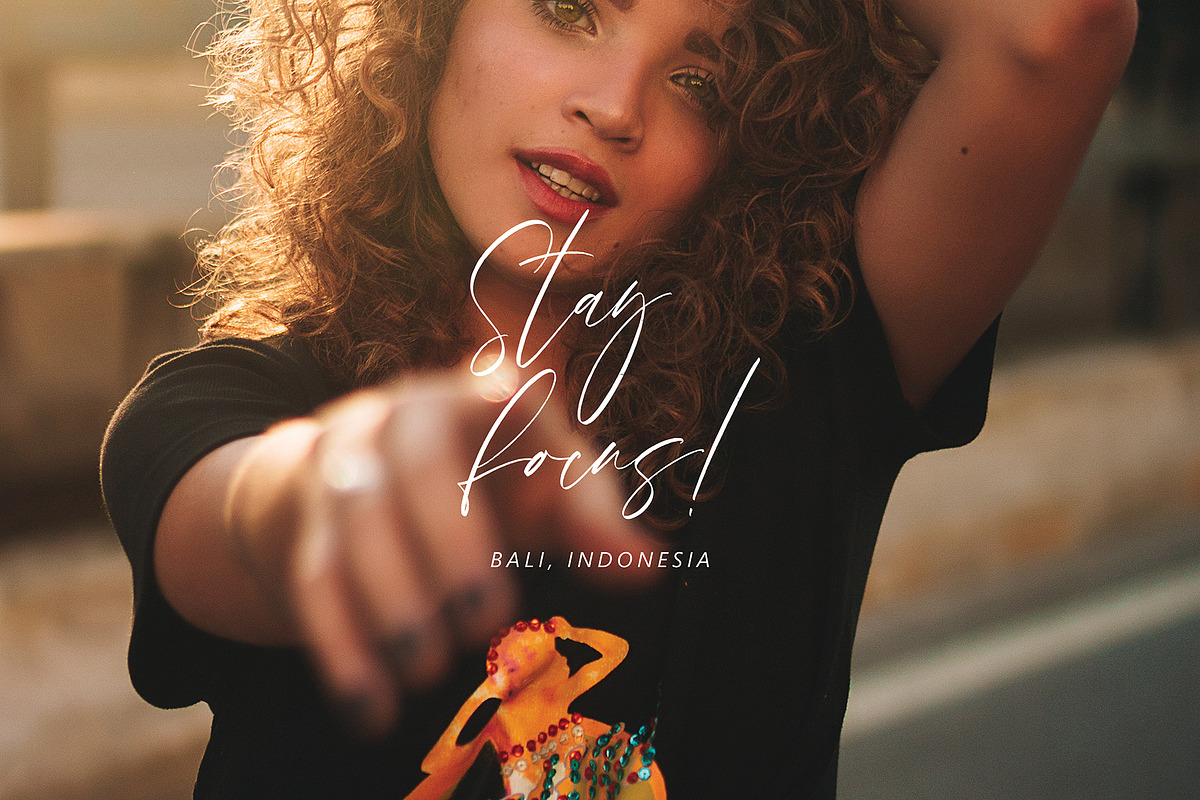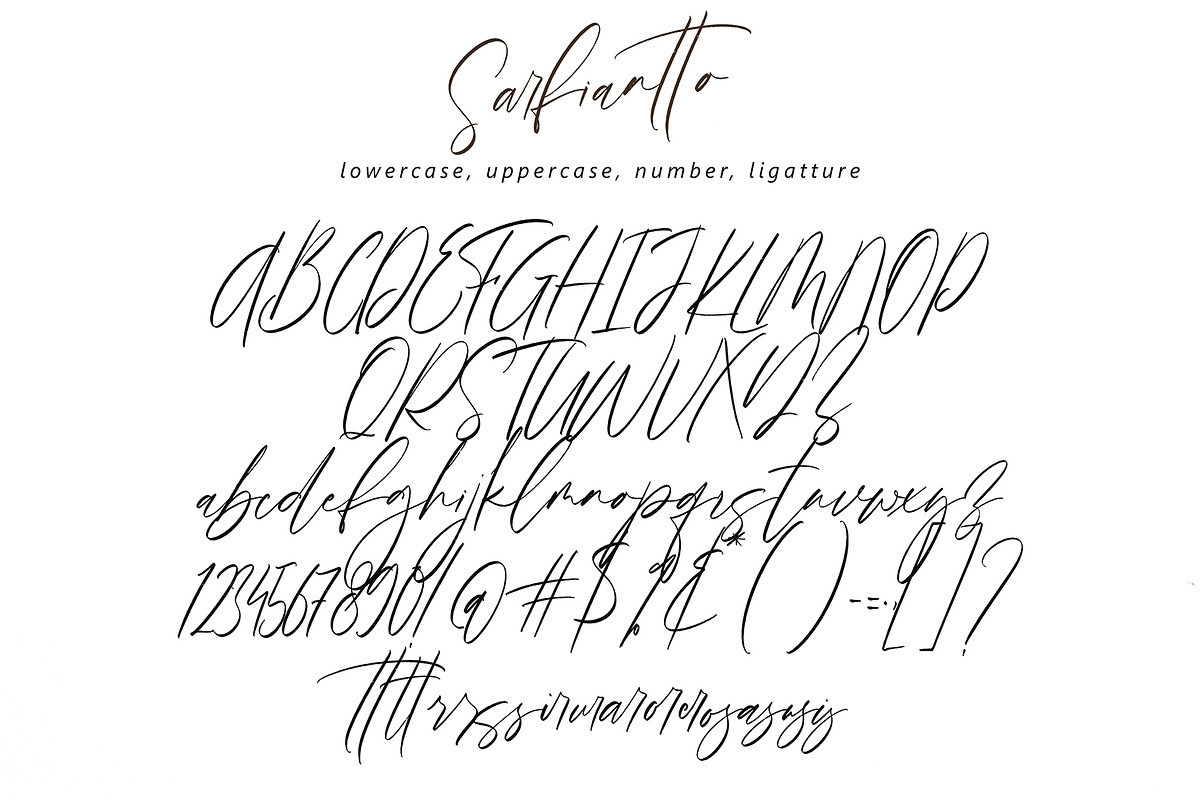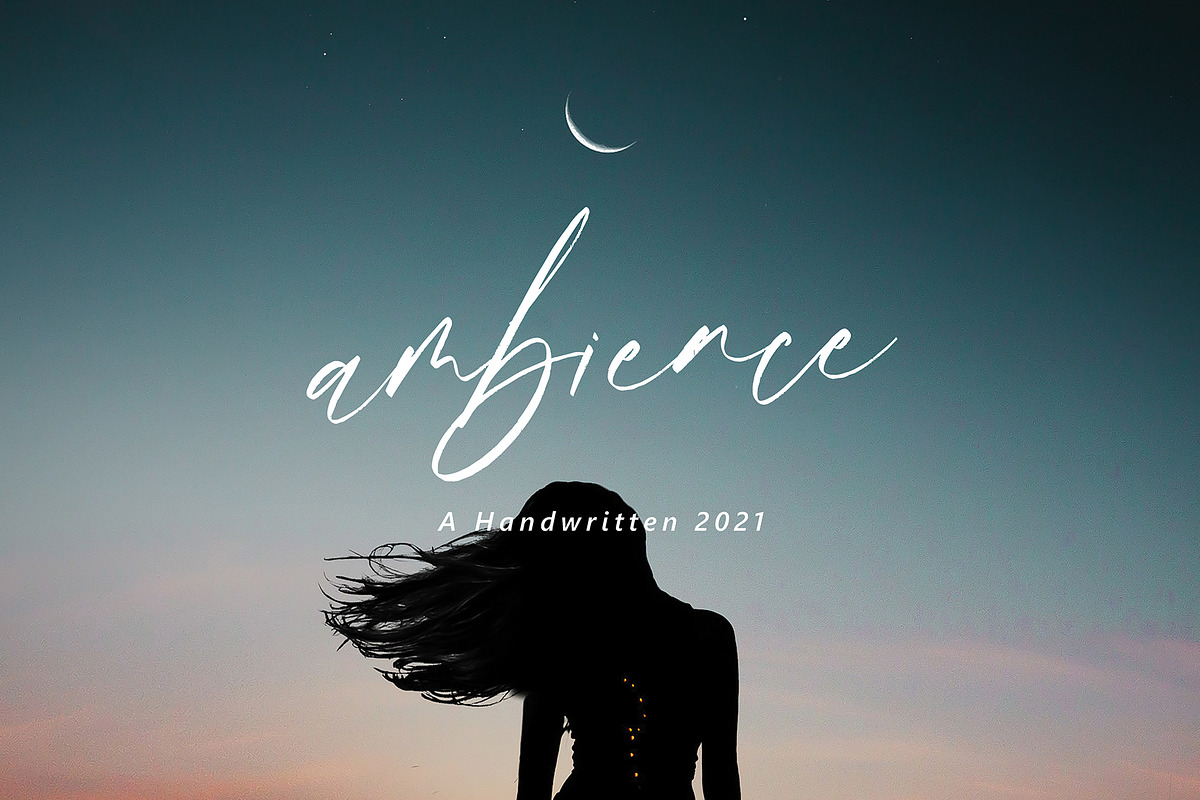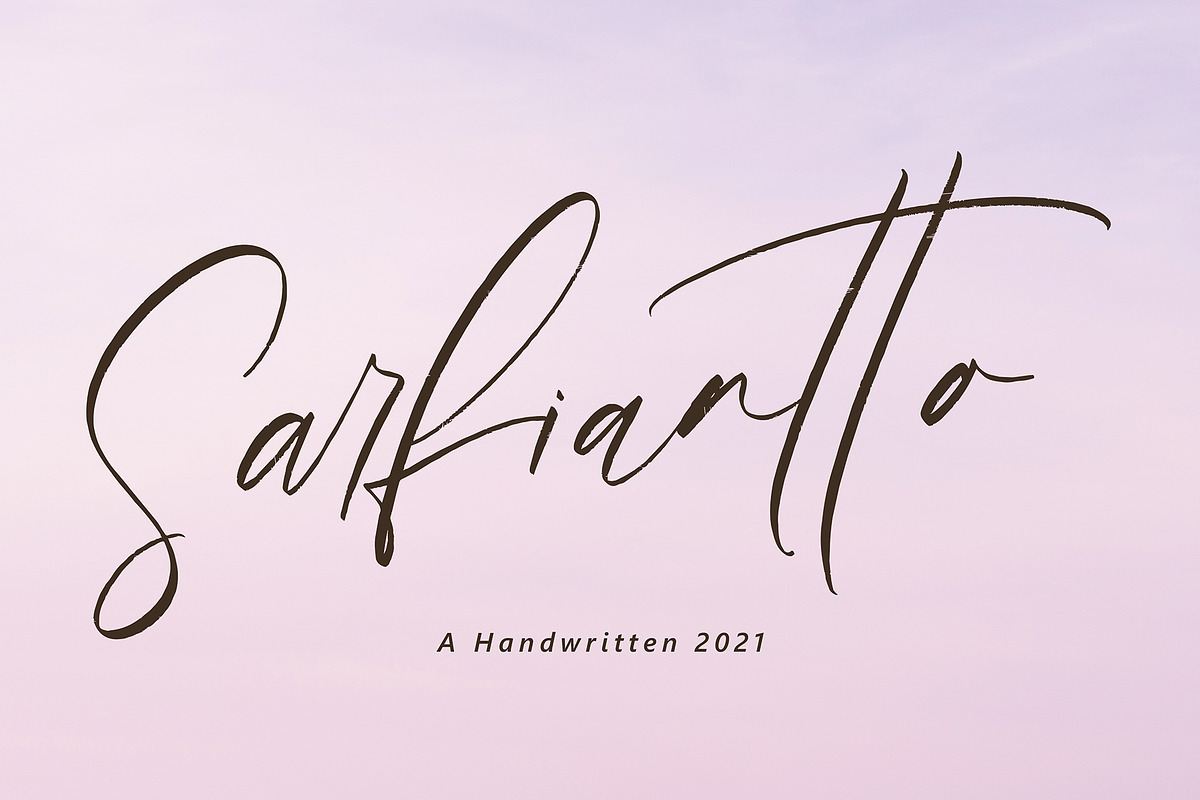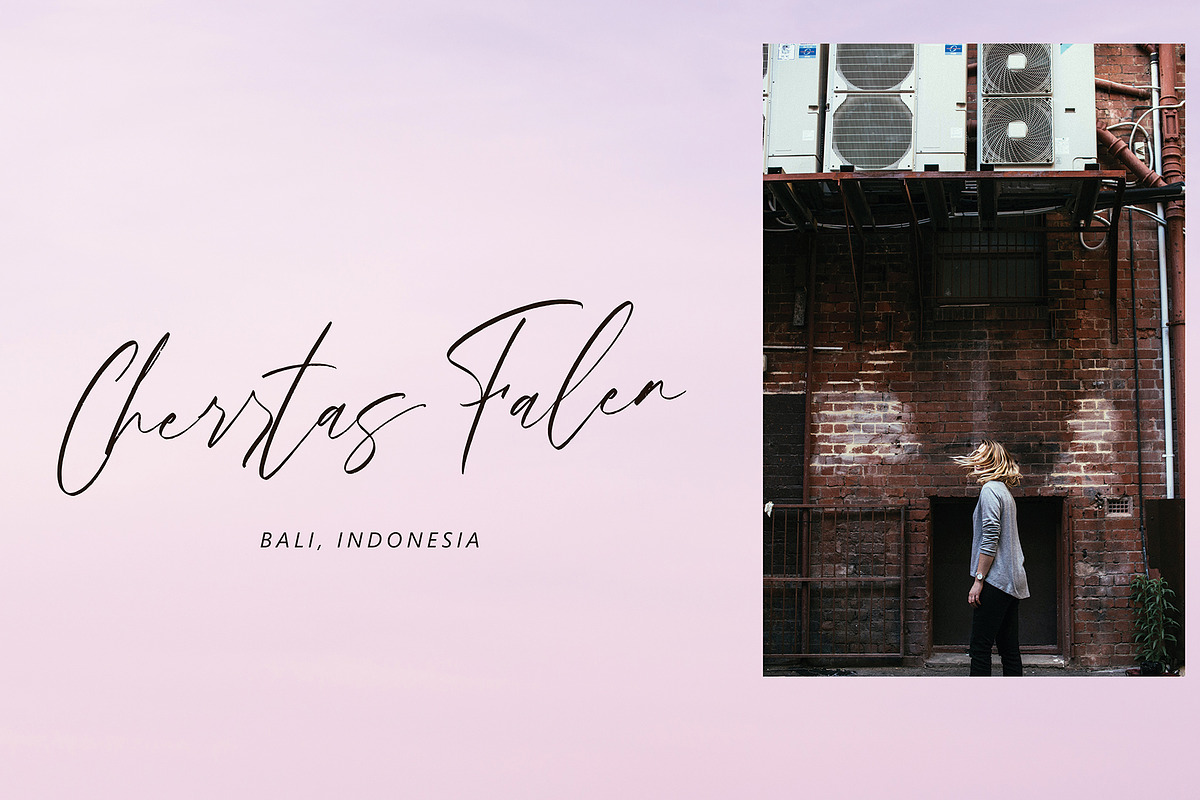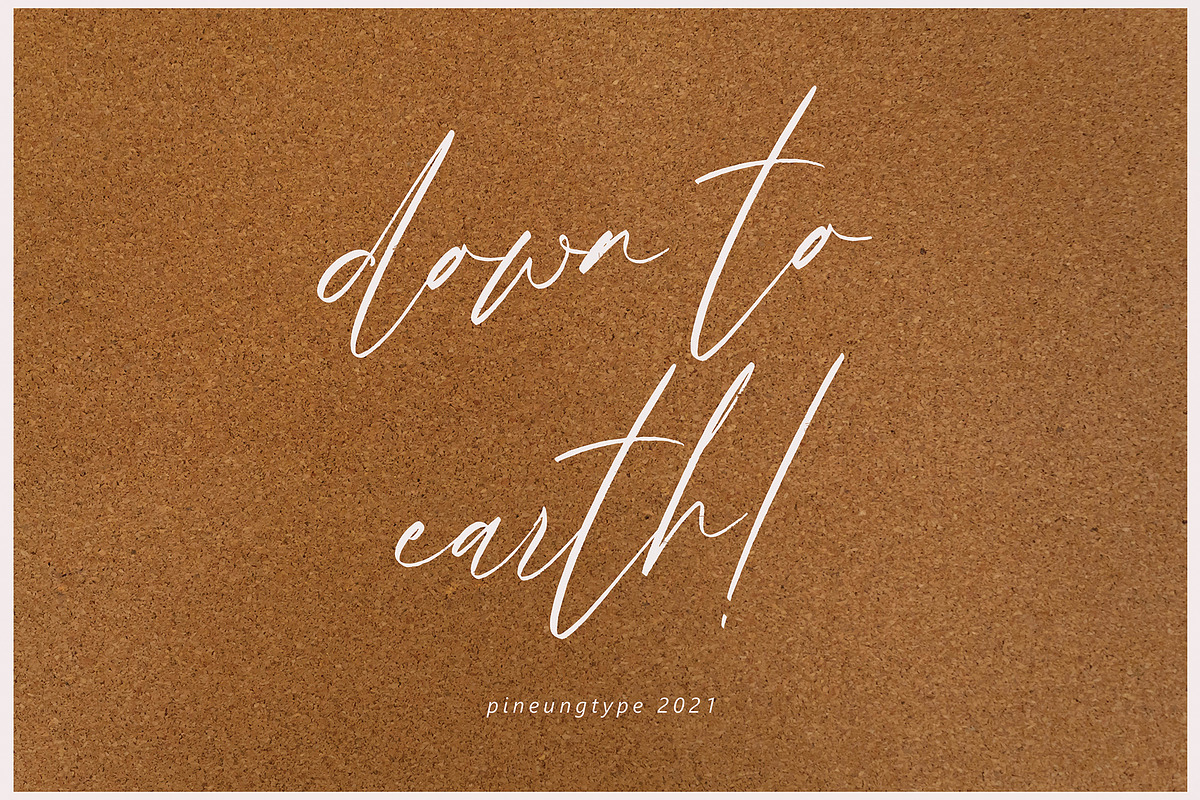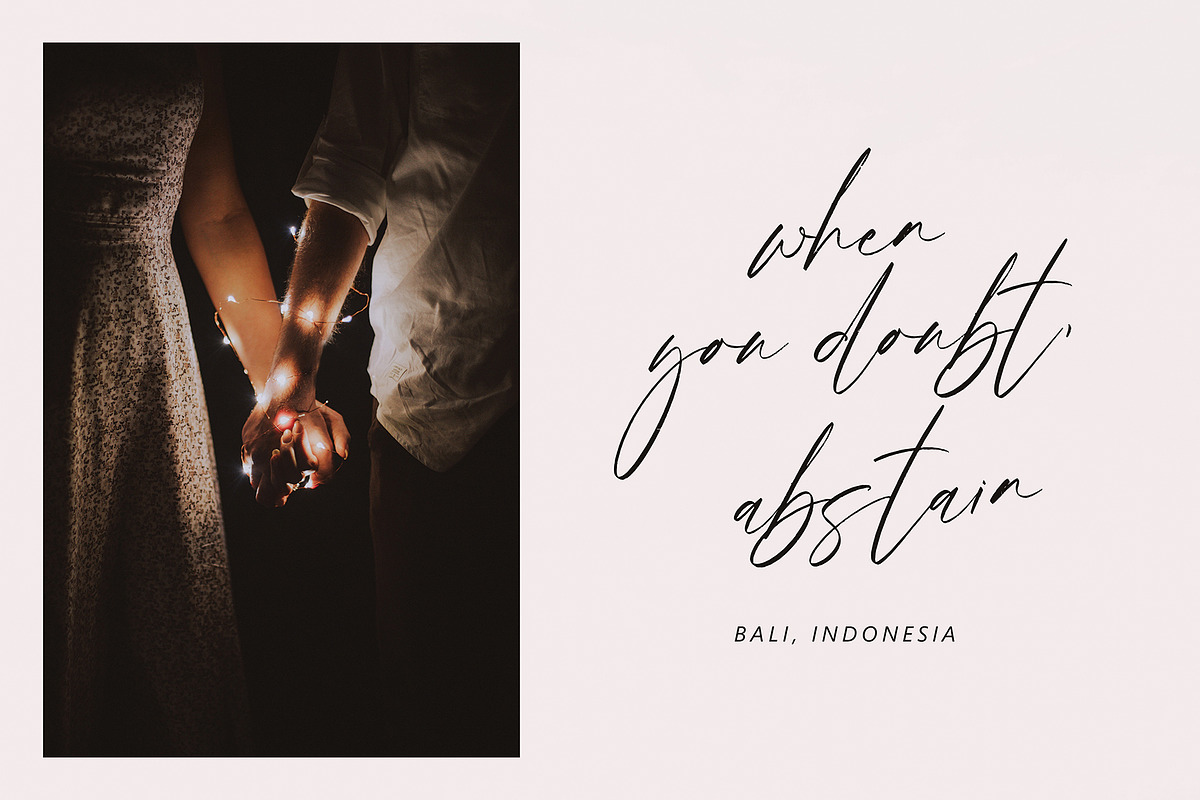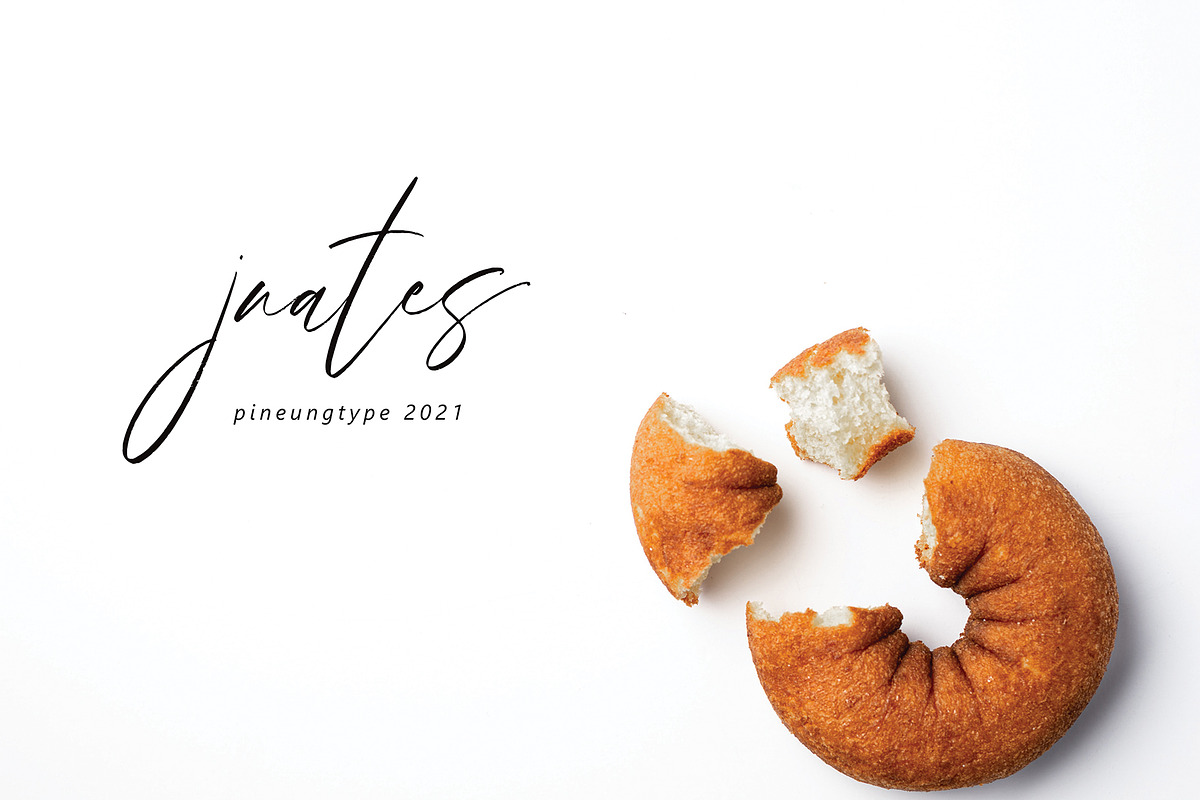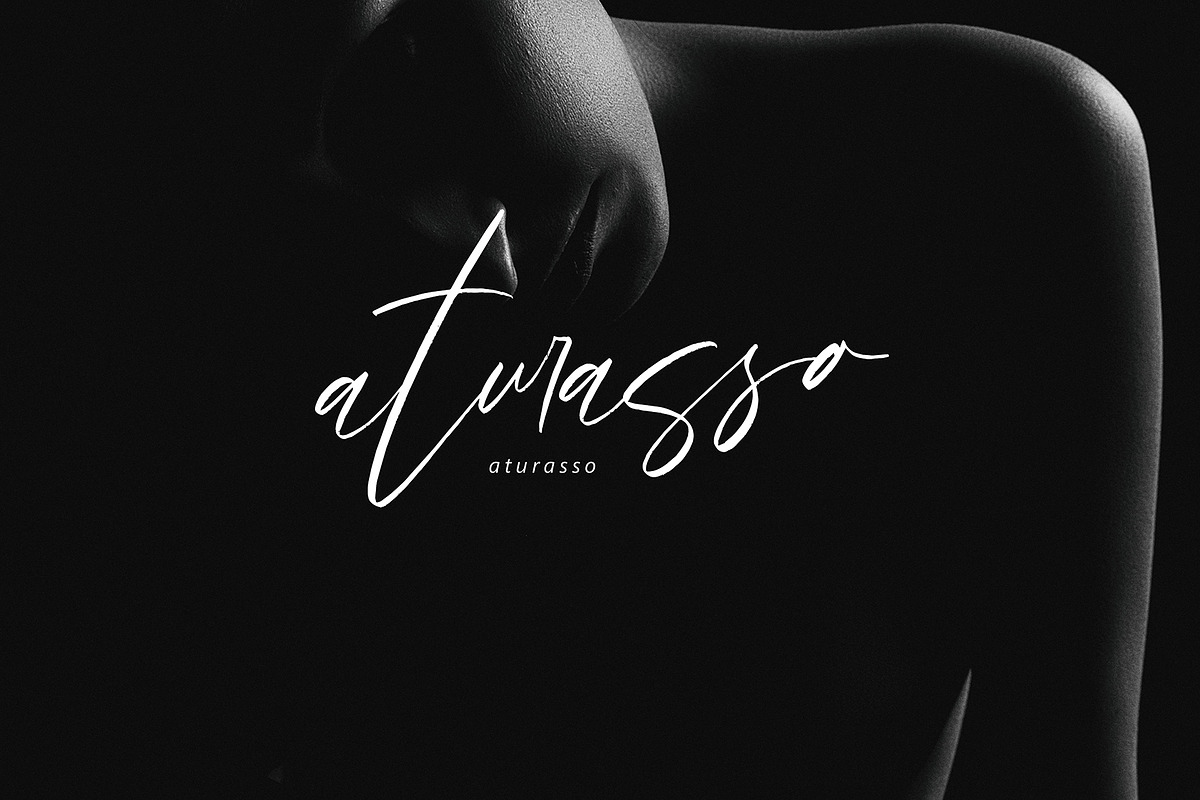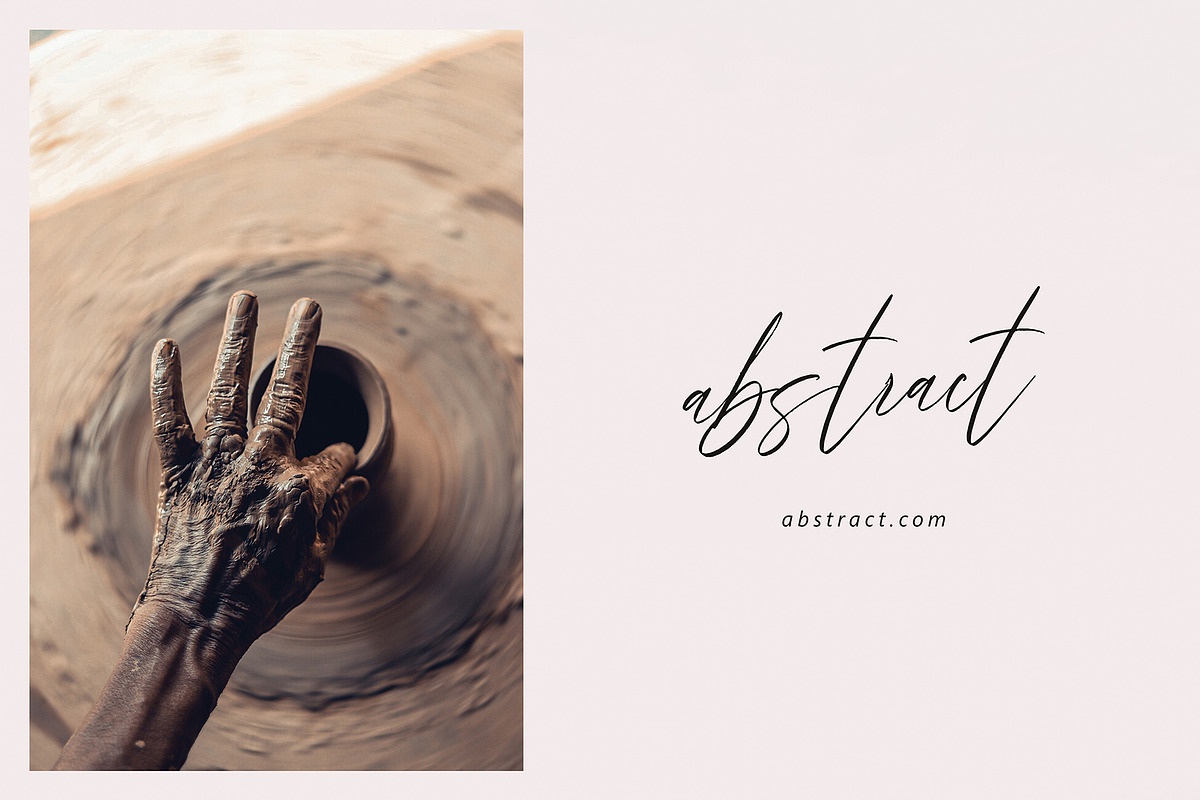
Sarfianto
Sarfianto Faith font with new style, this font will perfect for many different project ex: quotes, logo, blog header, poster, banding, fashion, apparel, letter, invitation, stationery, etc...